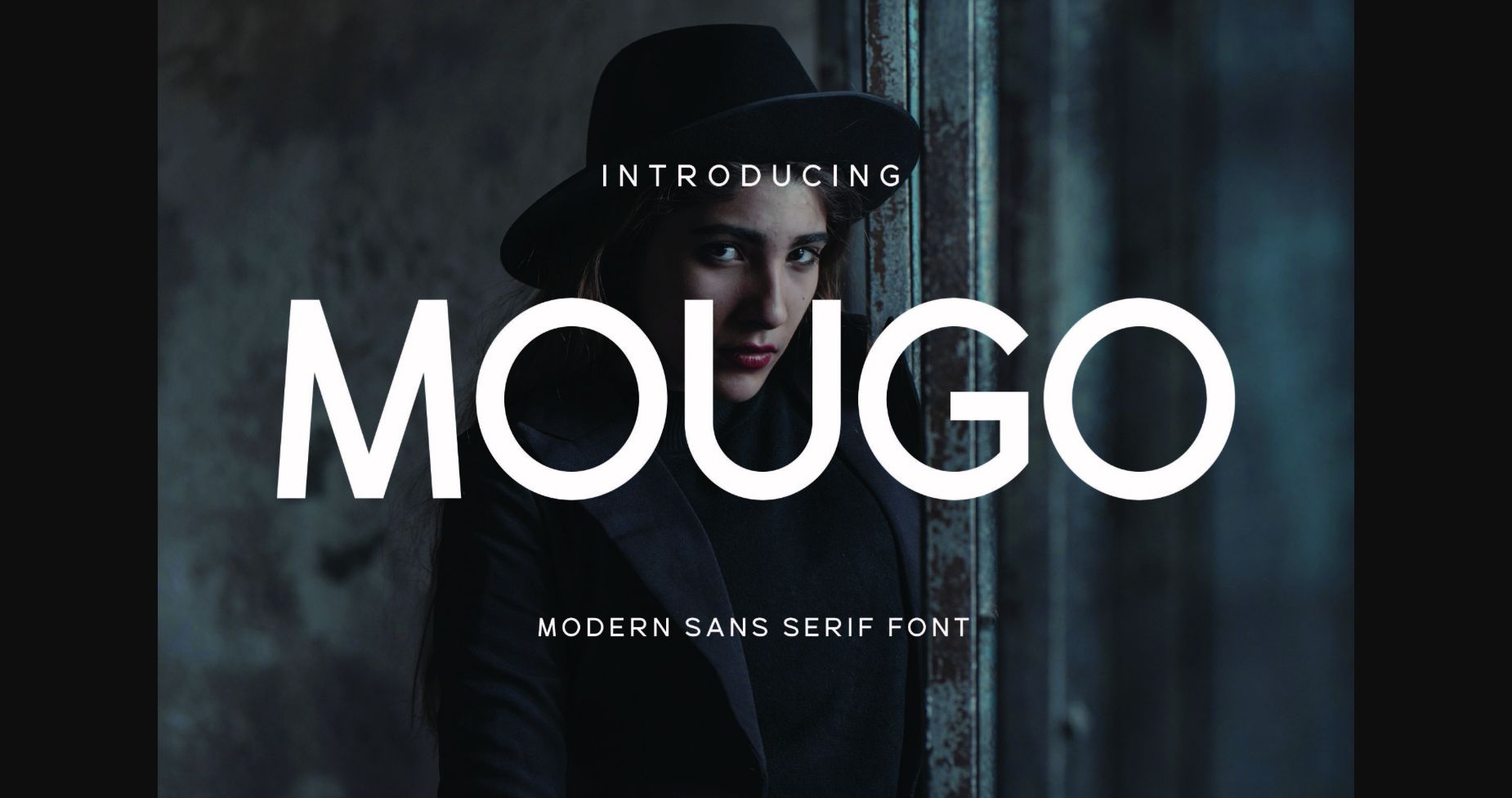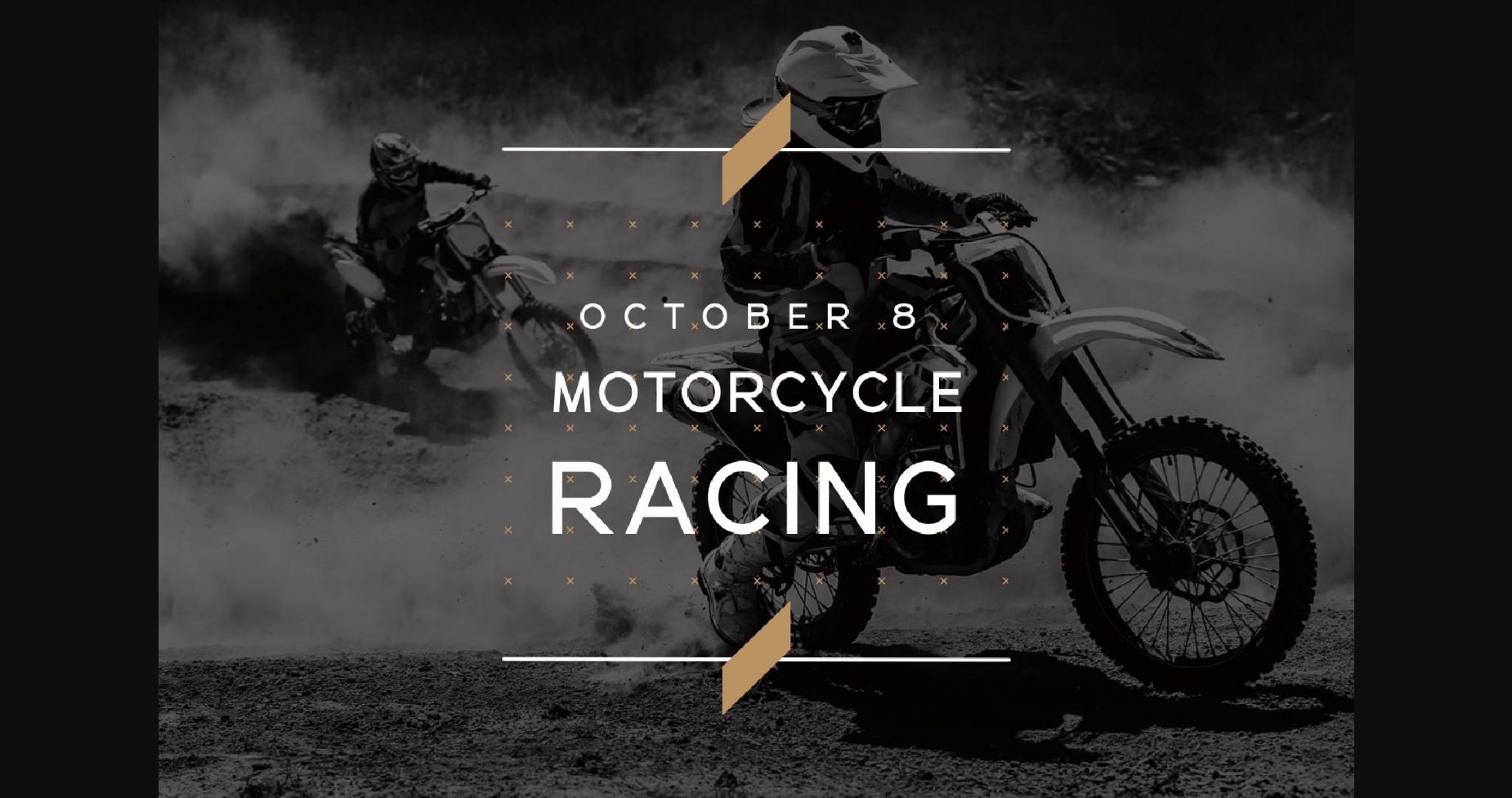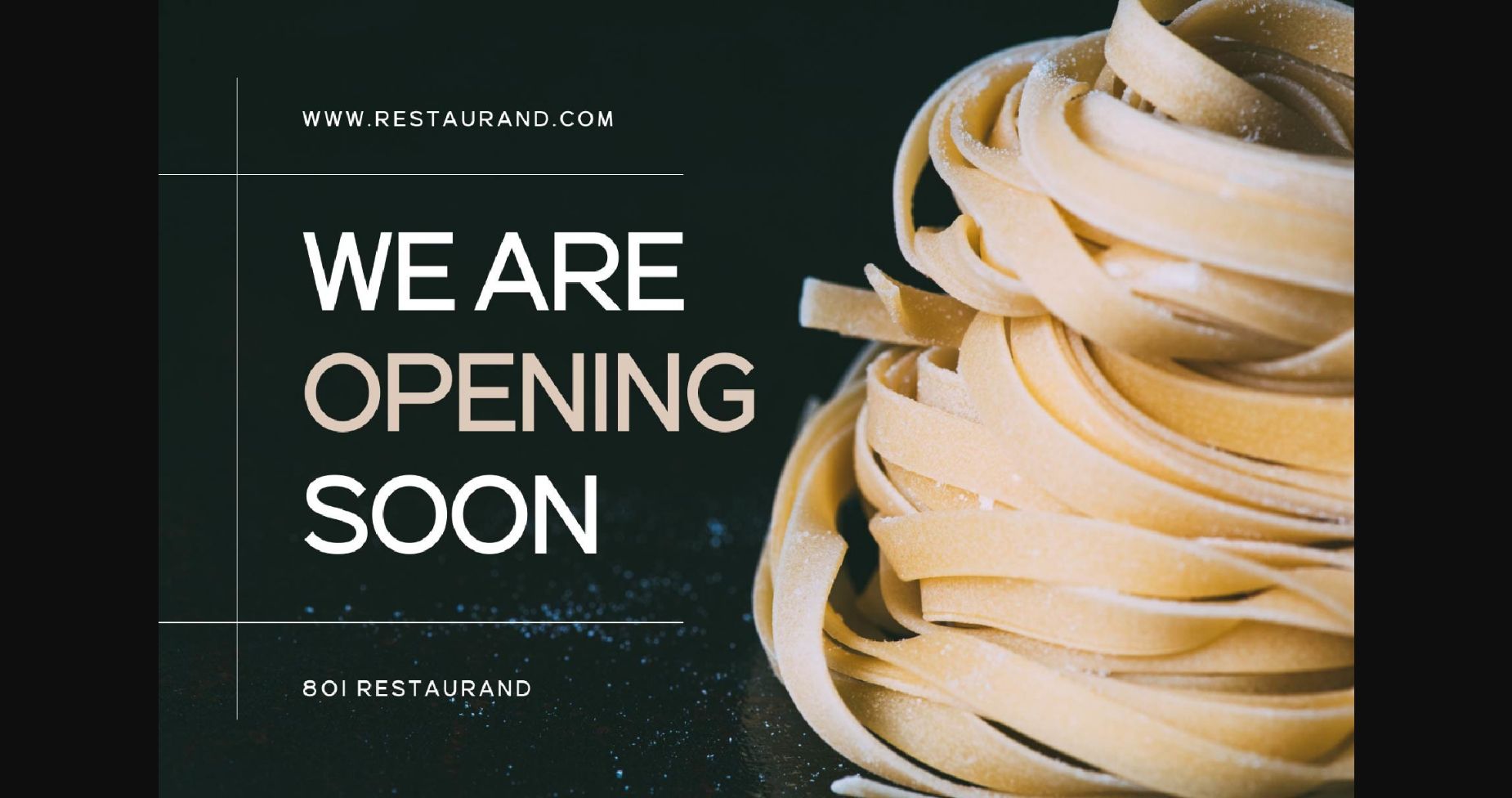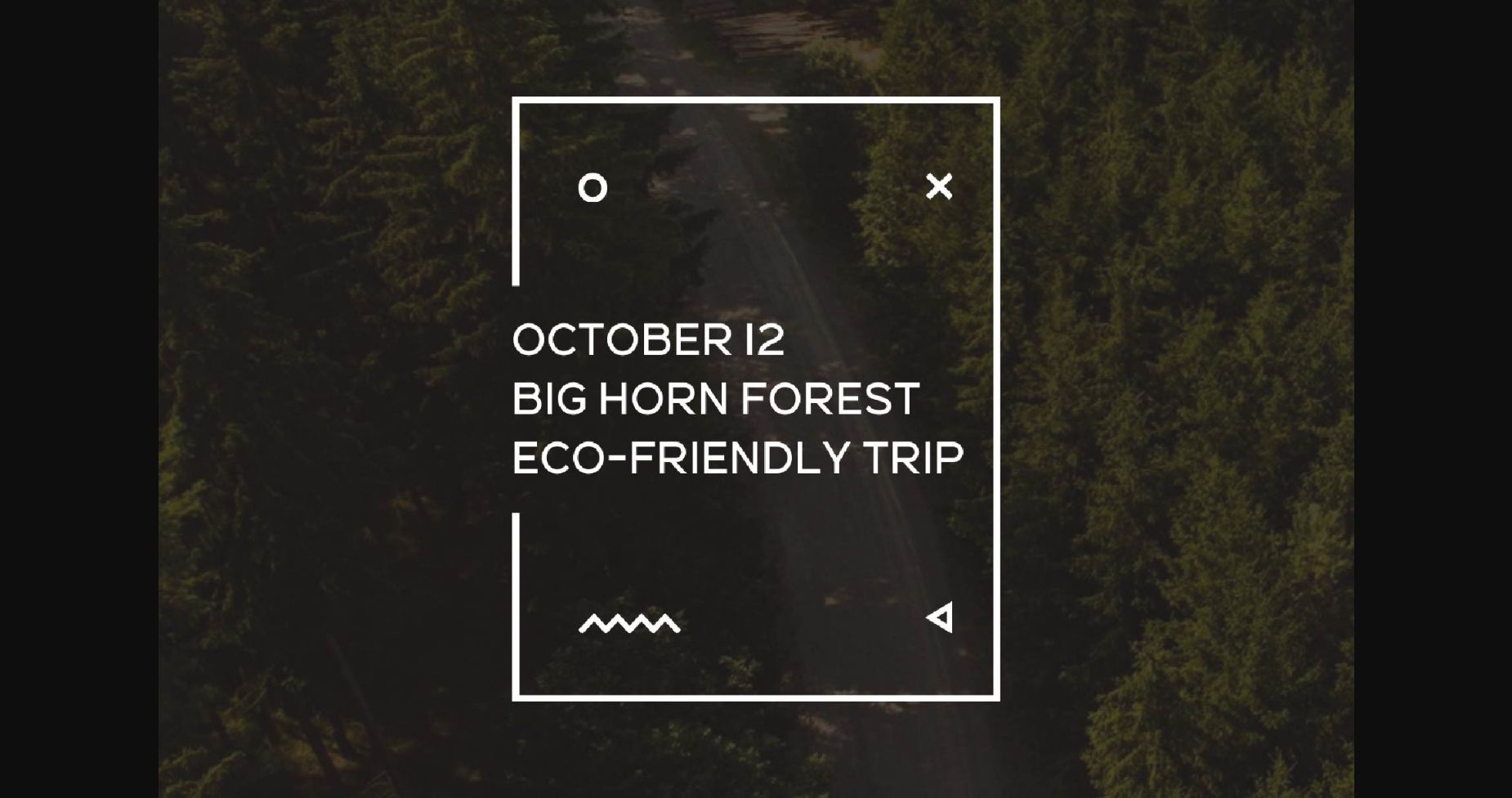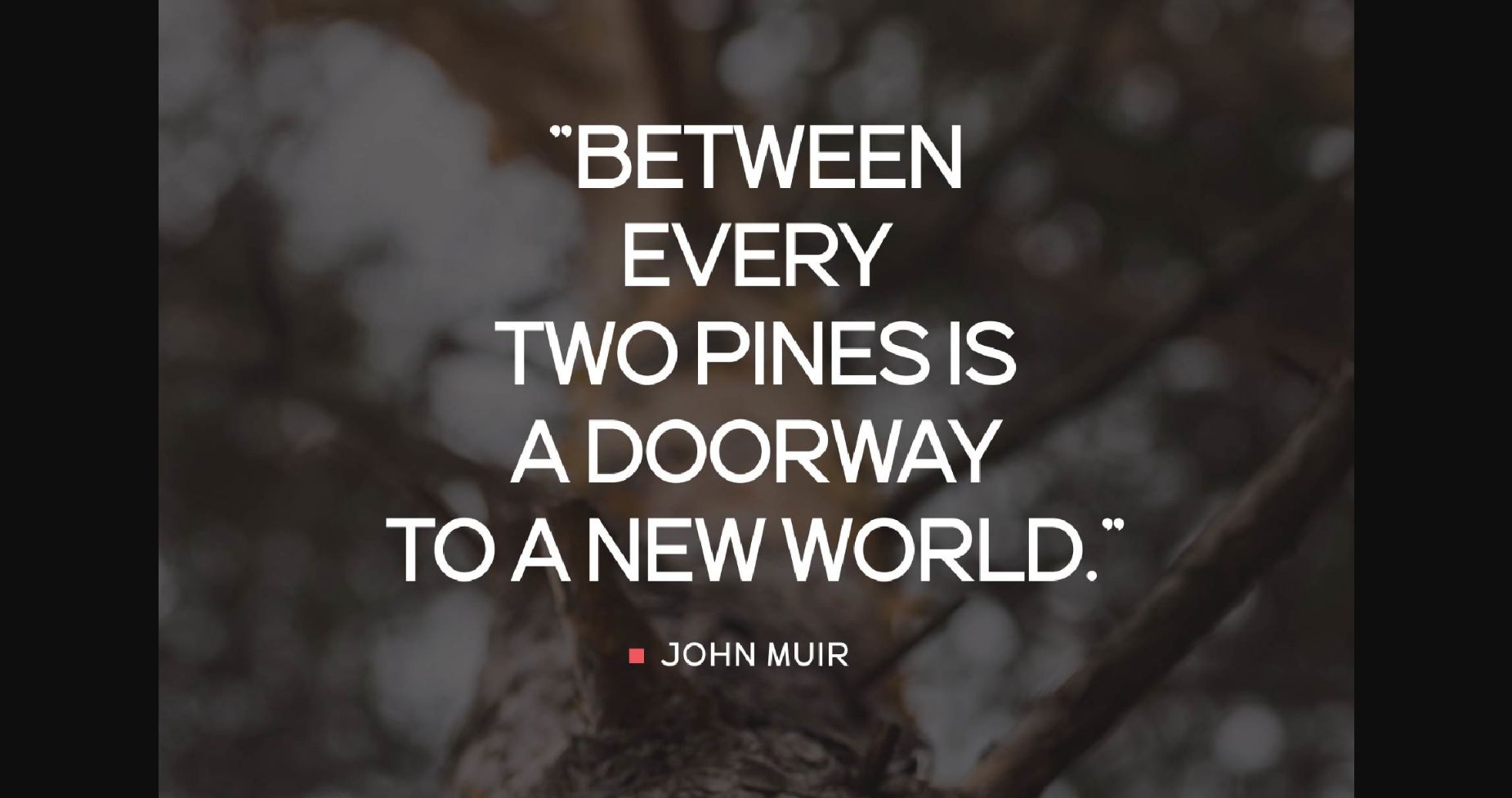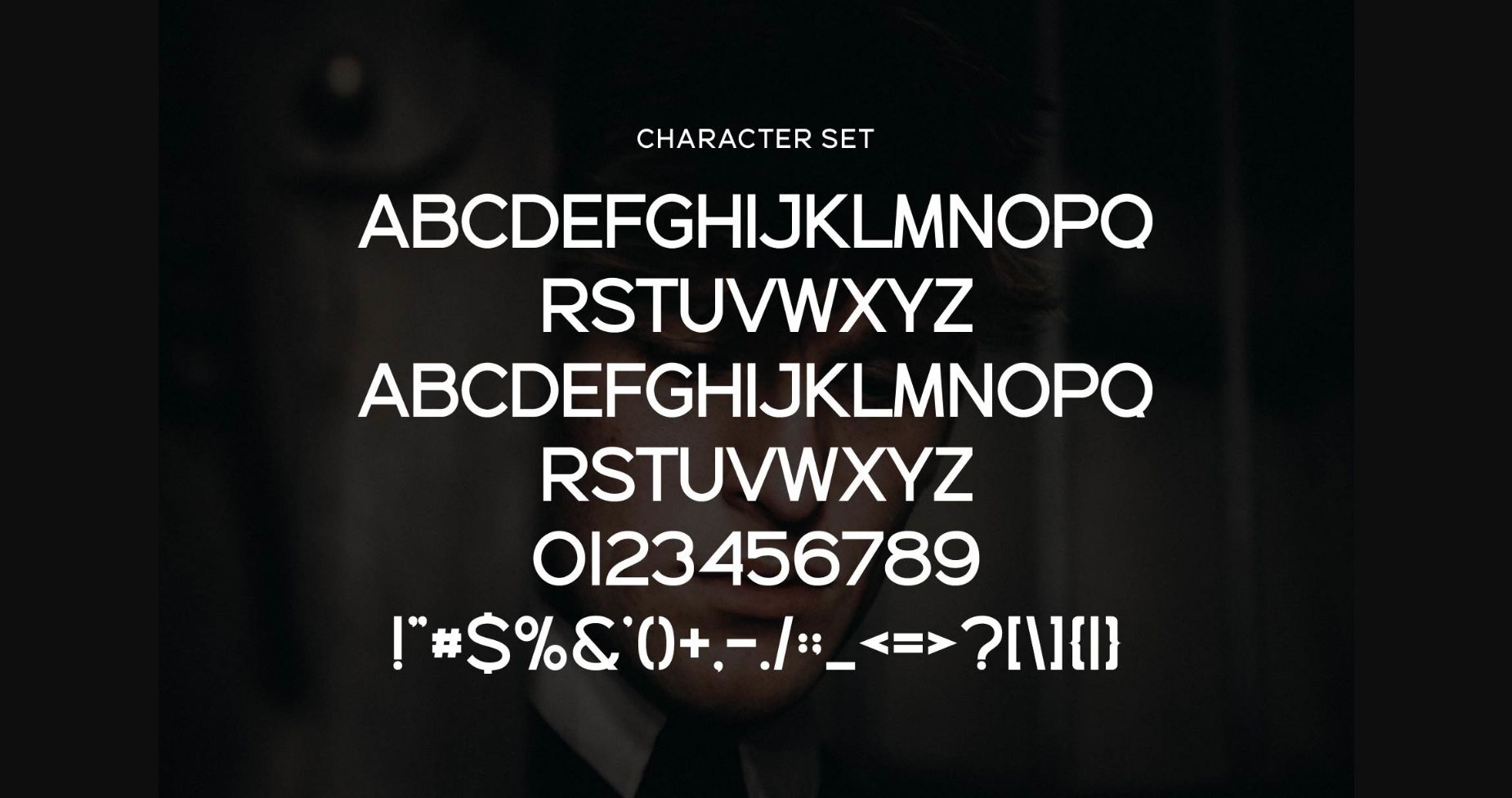
About Mougo Font
Mougo is a modern sans serif font. Fall in love with its incredibly
versatile style and use it to create gorgeous wedding invitations, beautiful stationary art, eye-catching social media posts, and much more!